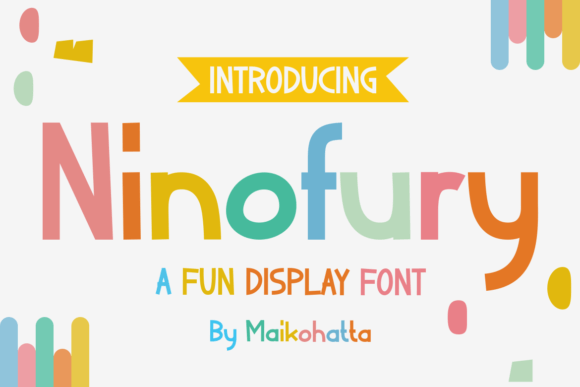
Ninofury: A Playful Display Font That Feels Like a Smile
It started with a single line of text on a mockup—“Spring Recipes You’ll Make Again and Again”—set in three different fonts. One felt too stiff for the warmth of the content, another too fragile to hold attention at a glance, and the third? Ninofury. Instantly, it settled into place—not shouting, not whispering, but leaning in with quiet confidence and a gentle, playful tilt.
I was redesigning the cover and chapter openers for a seasonal recipe ebook: 48 pages of hand-tested dishes, ingredient stories, and small-batch kitchen wisdom. The tone was warm, unhurried, and deeply human—not glossy food-magazine formal, but not casual enough for Instagram captions either. I needed a display font that could carry title weight without sacrificing personality. Ninofury did exactly that: its rounded terminals, subtle bounce in the ascenders, and friendly x-height gave headlines a tactile softness—like handwritten chalk on a sunlit café board, but with the polish and consistency a professional publication requires.
Ninofury is, first and foremost, a display font—and it shines brightest where intention meets visibility. It’s not built for paragraphs or long-form body copy (no display font truly is), but for moments that ask the reader to pause: a blog header welcoming them back, a pull quote anchoring an emotional insight in a coaching workbook, the title on a printable planner cover, or the “You’re Invited” line on a wedding guide PDF. Its rhythm is light but grounded; its mood is cheerful without tipping into whimsy, modern without losing warmth. There’s no forced quirkiness—just clean, considered shapes that invite connection.
In practice, I used Ninofury across four key touchpoints in the ebook: the main cover title, chapter openers (“Morning Rituals,” “Weeknight Magic,” “Slow-Simmer Sundays”), pull quotes pulled from contributor interviews, and section dividers between recipe clusters. Each time, it behaved beautifully—crisp at 36pt on screen, graceful at 72pt printed on matte paper, and surprisingly legible even at 24pt in mobile PDF viewers when paired with generous line spacing. It holds up well in both RGB and CMYK workflows, and exports cleanly from InDesign to PDF without glyph substitution hiccups.
What makes Ninofury especially thoughtful for editorial designers is how it supports hierarchy without demanding dominance. Because its letterforms have moderate contrast and open counters, it remains legible at smaller display sizes—unlike some ultra-thin or tightly spaced script fonts that vanish on mobile. And unlike many playful display fonts, it avoids excessive swashes or alternate characters that distract from meaning. What you see in the standard set is what you get: friendly, functional, and finished.
Pairing Ninofury feels intuitive. For body text, I chose a warm, low-contrast serif—something with gentle serifs and generous letter spacing—to echo its approachability while offering the readability readers need for ingredient lists and technique notes. For captions, subheads, and navigation elements, a neutral sans serif with true optical sizing (like a well-hinted variable font) kept the layout breathing and uncluttered. Ninofury doesn’t compete with its companions; it invites them in.
I also tested it in a digital magazine layout—this time for a short editorial feature on neighborhood bookshops. There, Ninofury anchored the headline and introduced pull quotes alongside archival photos. On screen, it rendered cleanly across Chrome, Safari, and Edge, and held its shape beautifully in responsive newsletter graphics exported as PNGs. For social media previews, I used it sparingly—just the article title over a muted background—because its charm lies in restraint. Too much, too often, dilutes its impact.
For creators building printable planners or coaching workbooks, Ninofury adds a layer of care without complexity. Its curves feel hand-touched but never sloppy; its spacing encourages clarity, not clutter. On a laminated worksheet or a spiral-bound journal cover, it reads as intentional—not decorative for decoration’s sake, but expressive because the message deserves presence.
That said, it’s worth noting where Ninofury isn’t meant to go: long paragraphs, dense captions, data tables, or UI labels. It’s not a workhorse font—but then, it’s not supposed to be. A strong editorial identity rests on knowing when to let a display font lead, and when to step back and let a trusted serif or sans carry the load. Ninofury excels at leading. It says, gently: This matters. Pay attention here.
In the end, choosing Ninofury wasn’t about trend-chasing—it was about matching tone to texture. It helped turn functional text into something felt: a pause, a breath, a quiet moment of recognition before the reader dives into the next recipe, the next chapter, the next idea. That’s the quiet power of good typography—not to dazzle, but to deepen.